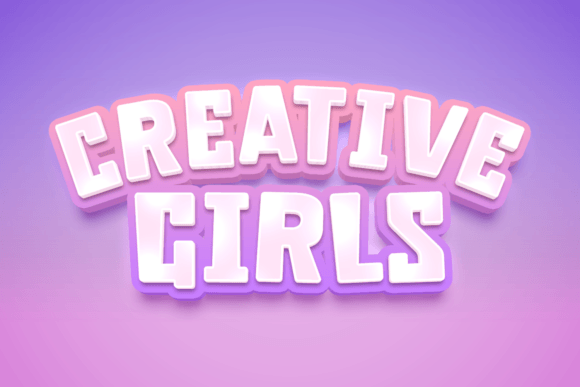
Prepare to be spellbound by Creative Girls Font, a typeface that radiates exquisite charm and captivating aesthetics. Immerse yourself in a world of visual artistry as you explore this mesmerizing display font, crafted with meticulous attention to detail by the talented designers at Creative Fabrica Fonts.
Creative Girls Font is a captivating display font that commands attention with its bold and distinctive presence. Its thick, enchanting strokes exude a sense of confidence and energy, making it the perfect choice for creating eye-catching designs that demand to be noticed.
Unleash your creativity and let your imagination soar as you utilize Creative Girls Font to craft stunning posters, thought-provoking quotes, unique t-shirts, captivating product packaging, and elegant cards. The versatility of this font knows no bounds, extending to vibrant banners, dynamic flyers, and countless other projects that crave a touch of visual magic.
With Creative Girls Font as your artistic weapon, you'll transform ordinary designs into extraordinary masterpieces. Its alluring curves and sharp angles work in perfect harmony, evoking emotions and leaving a lasting impression on your audience.
Step into the realm of typographic excellence and add Creative Girls Font to your design arsenal. Let your creativity flourish as you witness the transformation of your projects into visually captivating expressions of art.